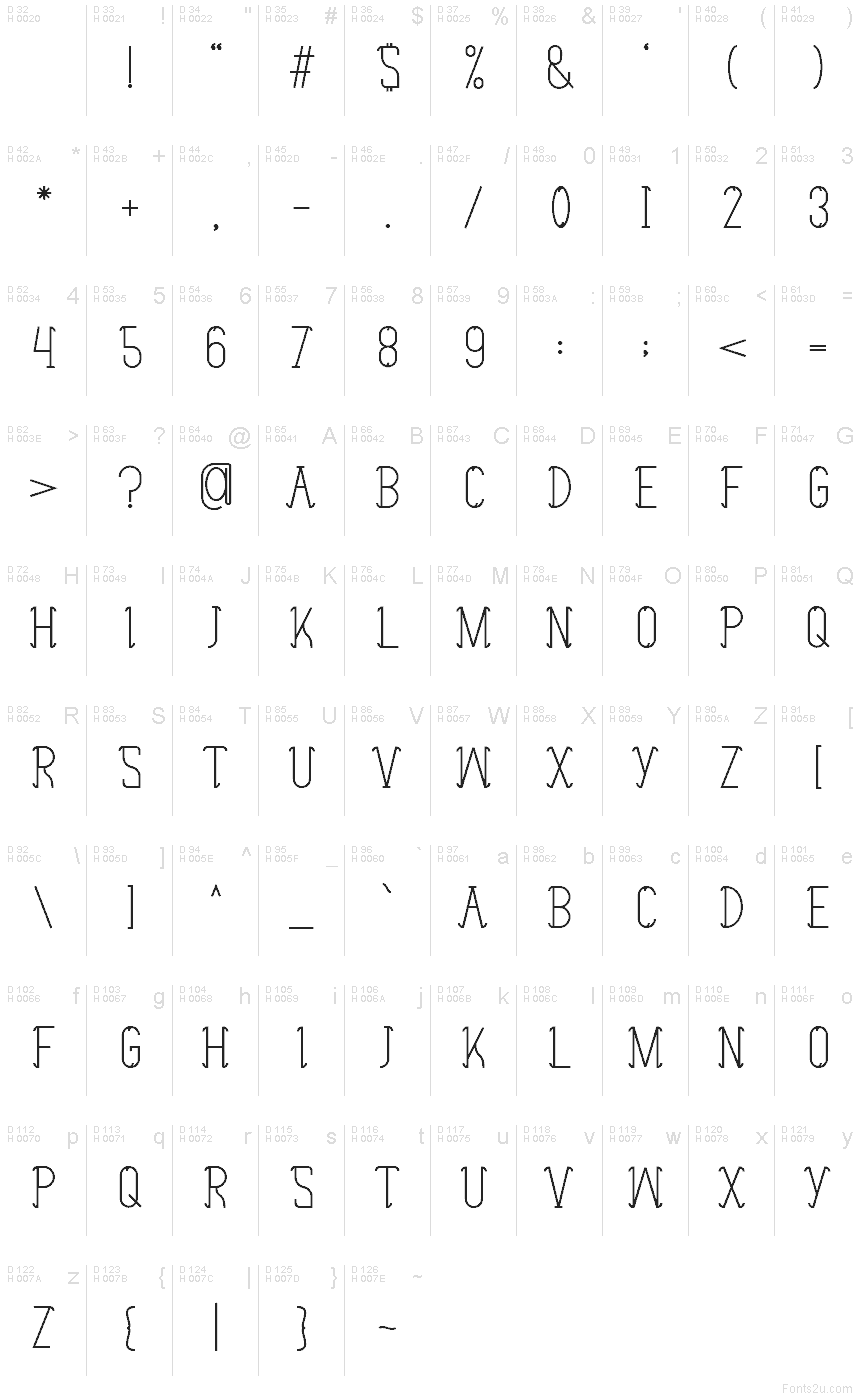
Holly Curves font by Pian45 Studio is a free decorative display typeface that turns thin, inky lines into something almost architectural. Tall, ultra-condensed letters stack vertically like neon tubing, while their soft inner curves keep the whole wordmark from feeling harsh. The result is a sleek, wireframe look that feels both retro and futuristic-like signage glowing in a boutique window at night.
Using Holly Curves, headlines instantly gain that sculpted, boutique identity feel: think posters, fashion branding, cosmetic packaging, album covers, café menus, and social media graphics. The narrow proportions let you set big, dramatic titles without eating up horizontal space, so it sings on tight layouts. Pair this free font with a simple geometric sans for body text and keep Holly Curves large with generous spacing to let those elegant lines breathe.